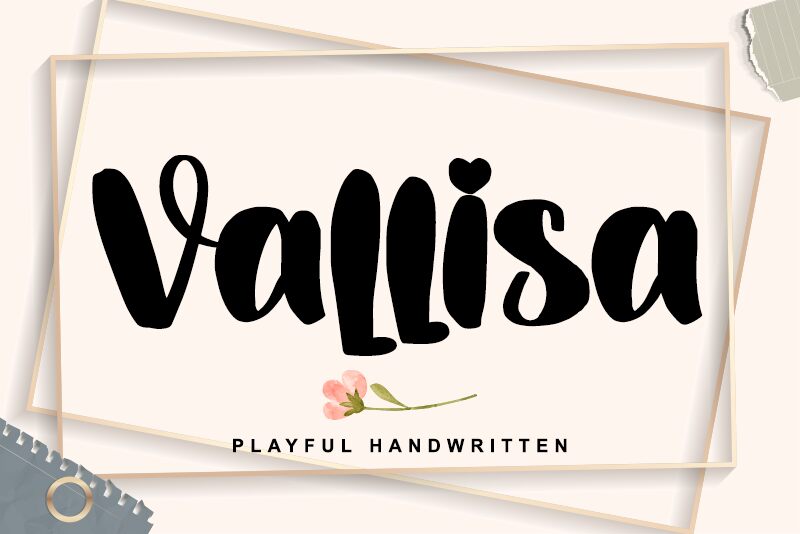
Vallisa, crafted by the imaginative minds at Letterara, embodies the spontaneity and charm of a semi-light brush font. Its playful and trendy handwritten strokes offer a unique mix of casual elegance that is perfect for a range of creative projects. With an incredibly friendly feel, Vallisa breathes life into your designs, from heartwarming invitations to dynamic branding materials.
Equipped with PUA encoding, this font ensures seamless access to all its adorable glyphs, allowing designers to effortlessly express their creativity. The versatility of Vallisa's style makes it an ideal choice for those who seek to infuse their artwork with warmth and a personal touch. Engage your audience with this delightful typeface that transforms ordinary text into an enchanting visual story.